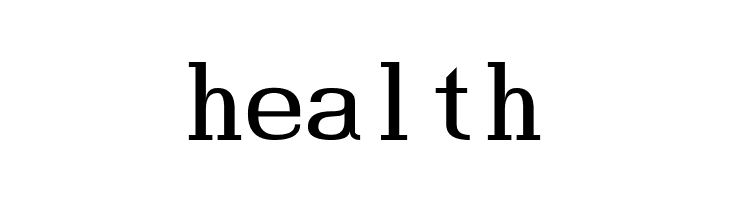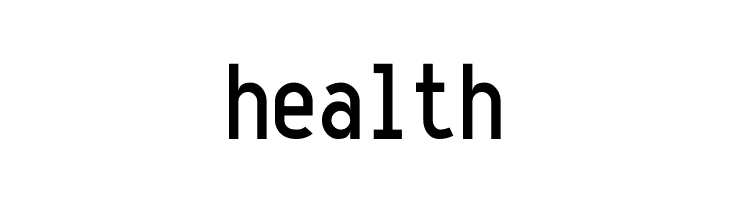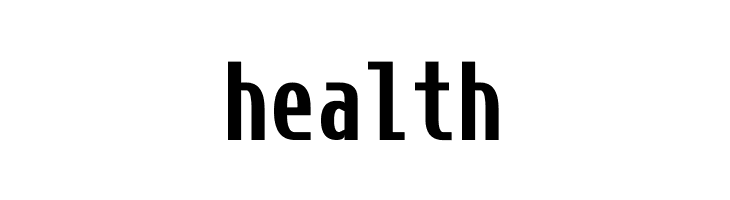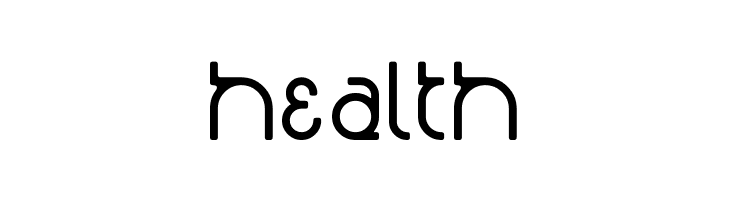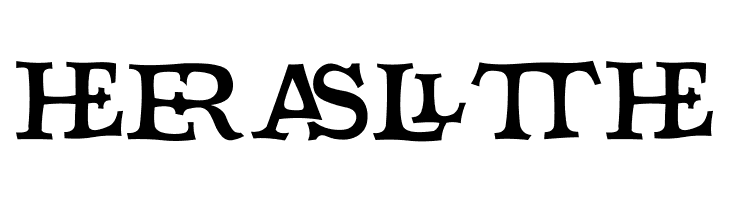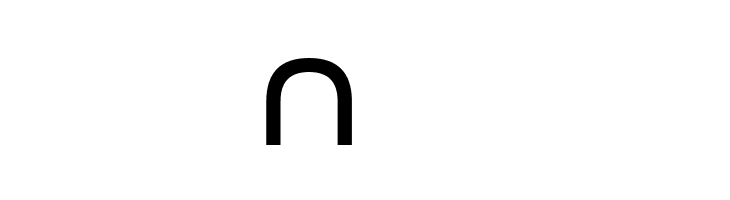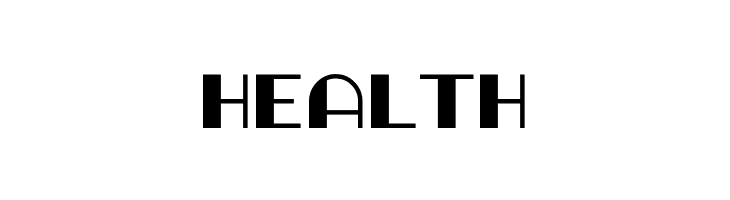
• Hindsight Monospace Regular
A monospaced serif font with uniform character width and classic design.
• OneSlot
A modern, clean sans-serif font with a slightly condensed structure.
• Torquemada Starved
A modern, geometric font with clean lines and a minimalist aesthetic.
• Torquemada Starved Bold
A bold, modern font with a condensed, geometric style.
• Radian
A modern geometric font with rounded and angular elements, offering a clean and creative style.
• Torquemada
A bold, geometric font with a modern yet retro feel.
• Quicktype Regular
A playful and decorative font with bold, whimsical characters.
• Torturer Upright
A modern, geometric font with a futuristic and cohesive design.
• GangueOuais
A bold, geometric font with high contrast and art deco influences.
• Torturer Bound
A bold, geometric font with enclosed characters and a futuristic style.